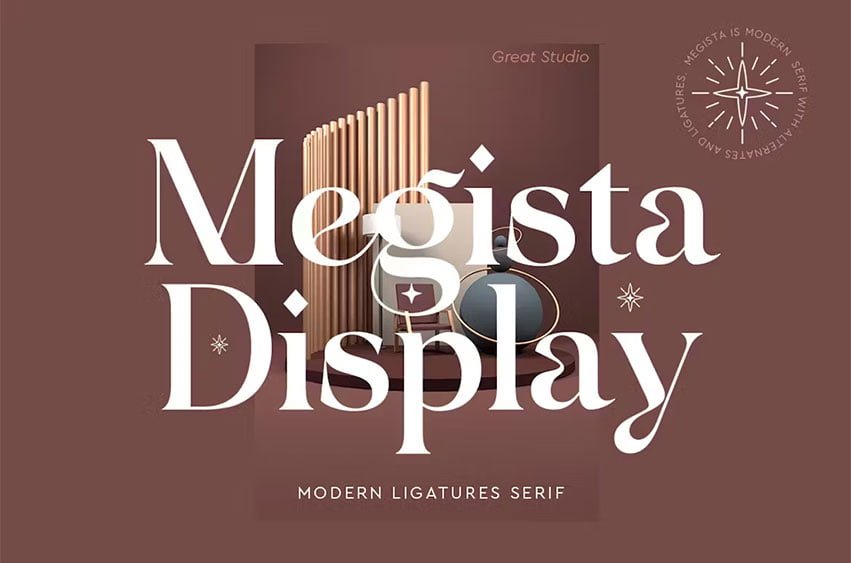
Megista Font display is a modern serif font with a unique ligature style, a high contrast and light font perfect for feminine logo signs, editorial designs, branding projects, packaging, magazine headings, advertising, postcards and much more.
Megista display is also included full set of:
Uppercase and lowercase letters Automatic ligatures Multilingual characters Numerals Punctuation